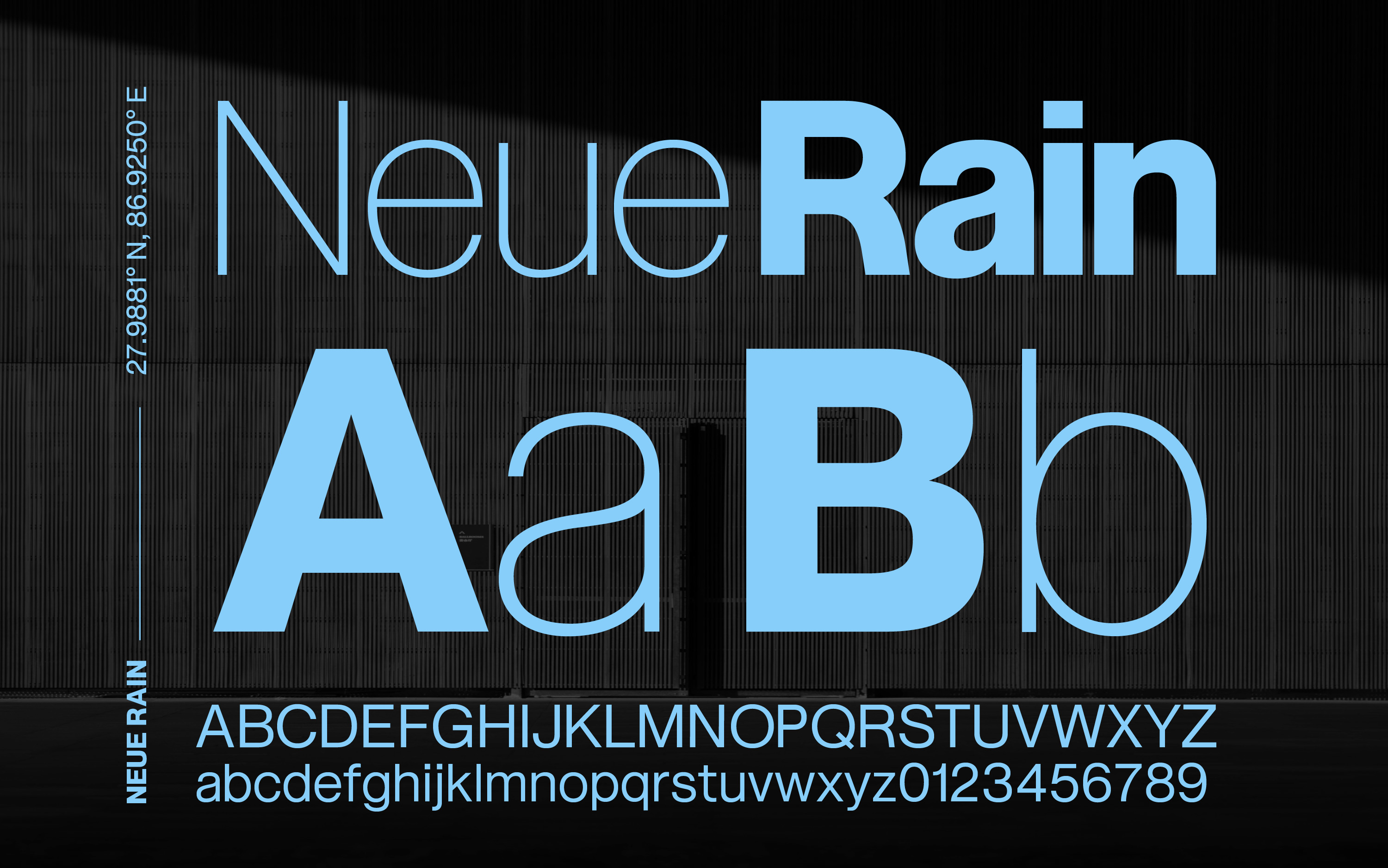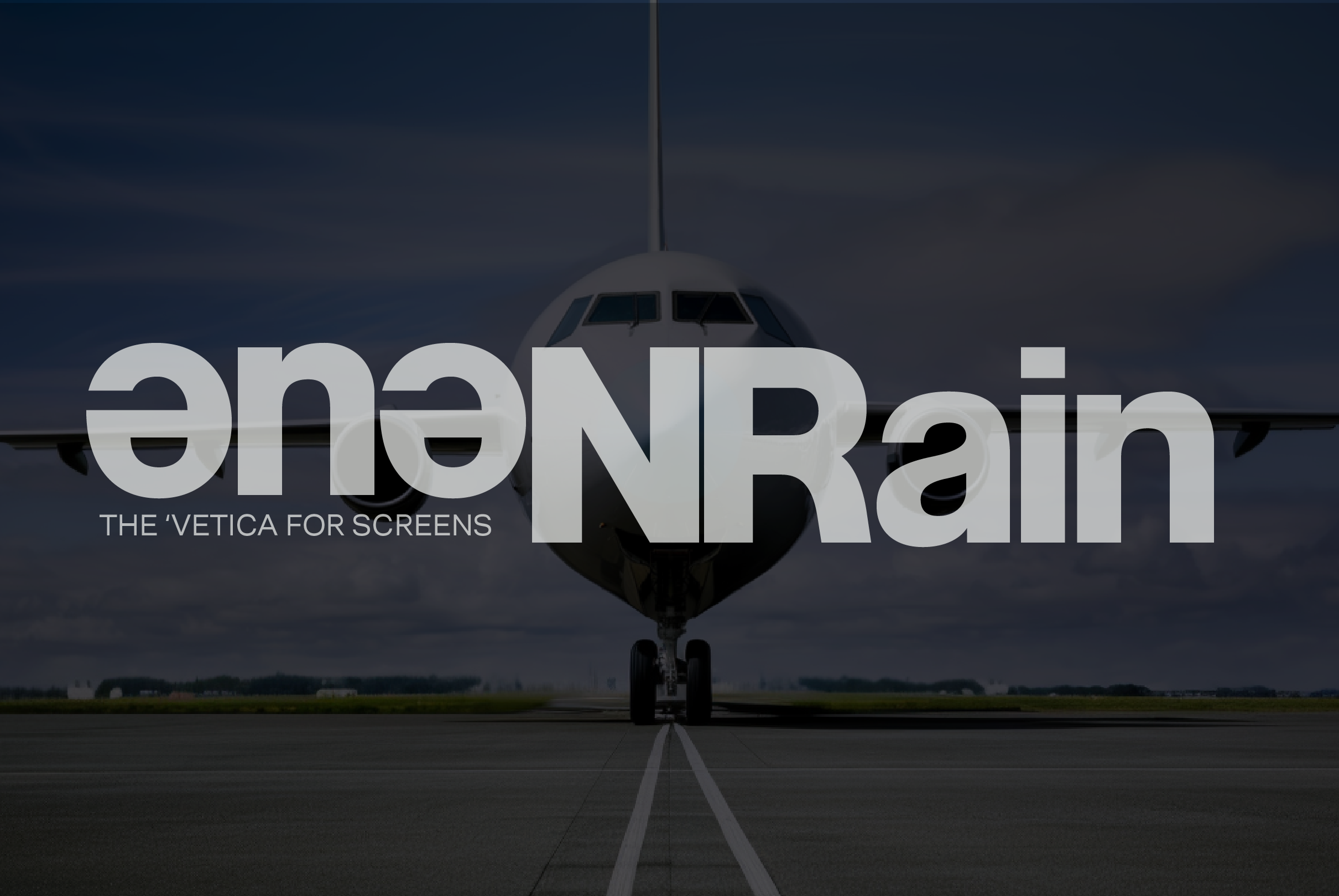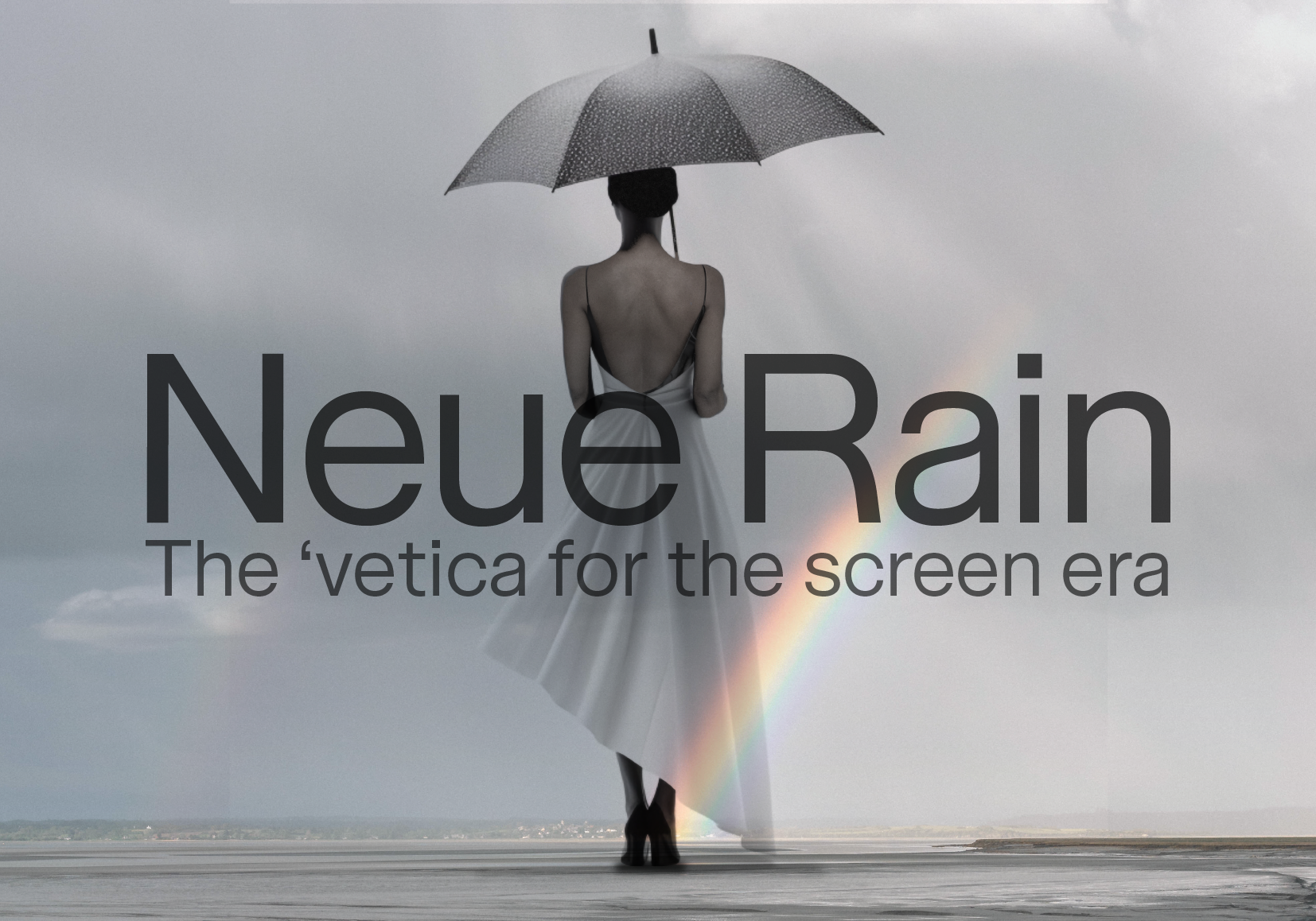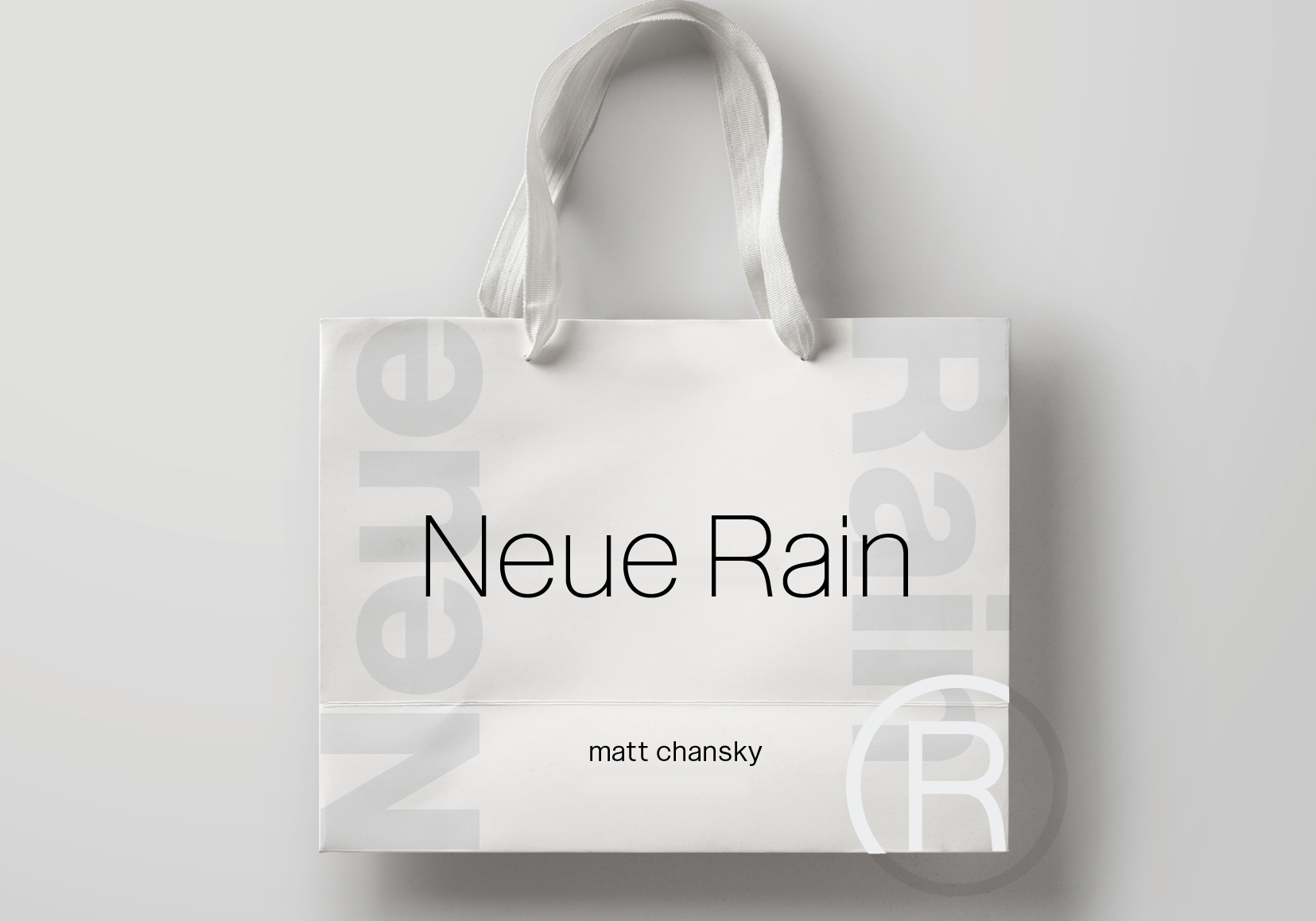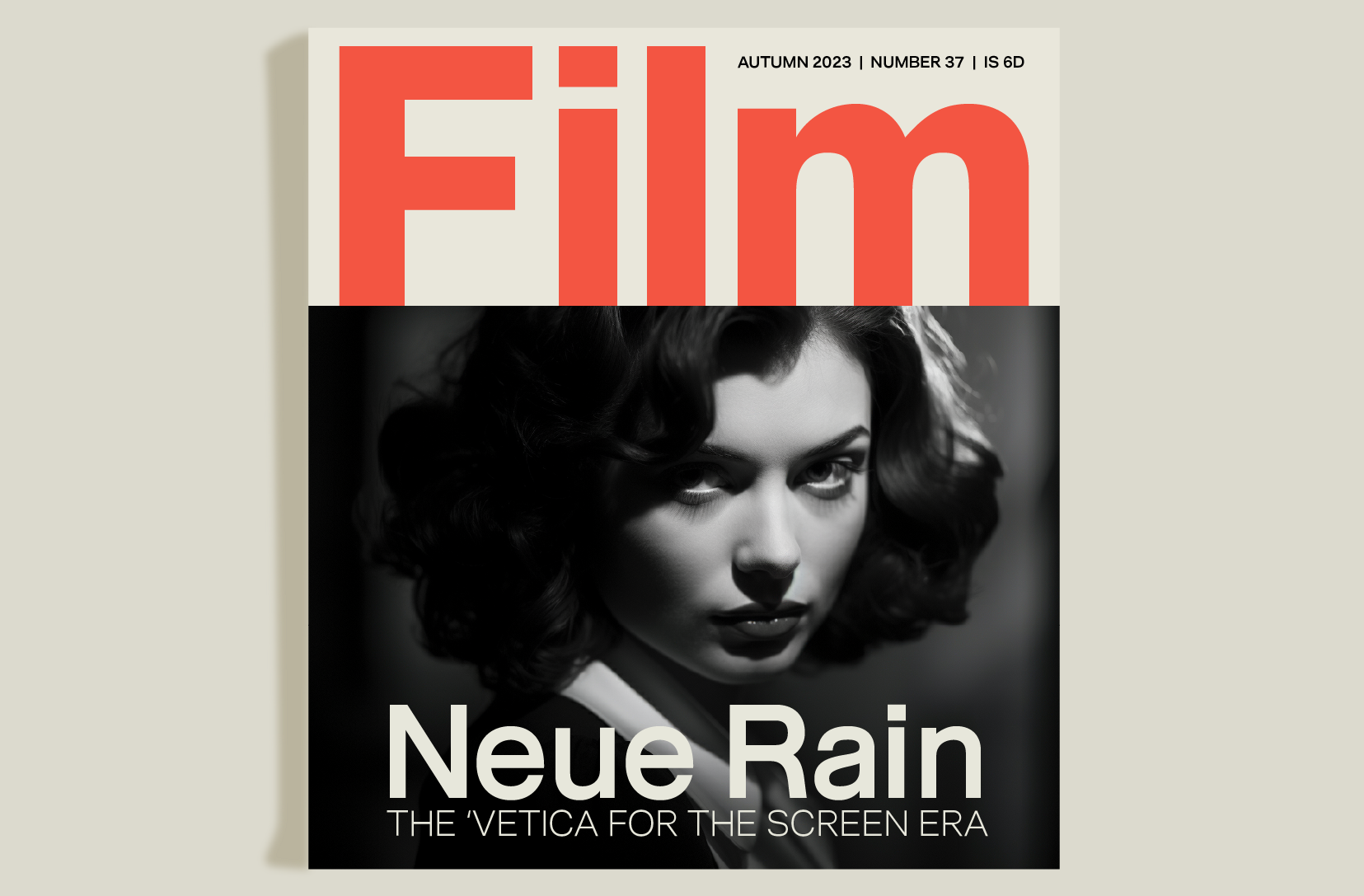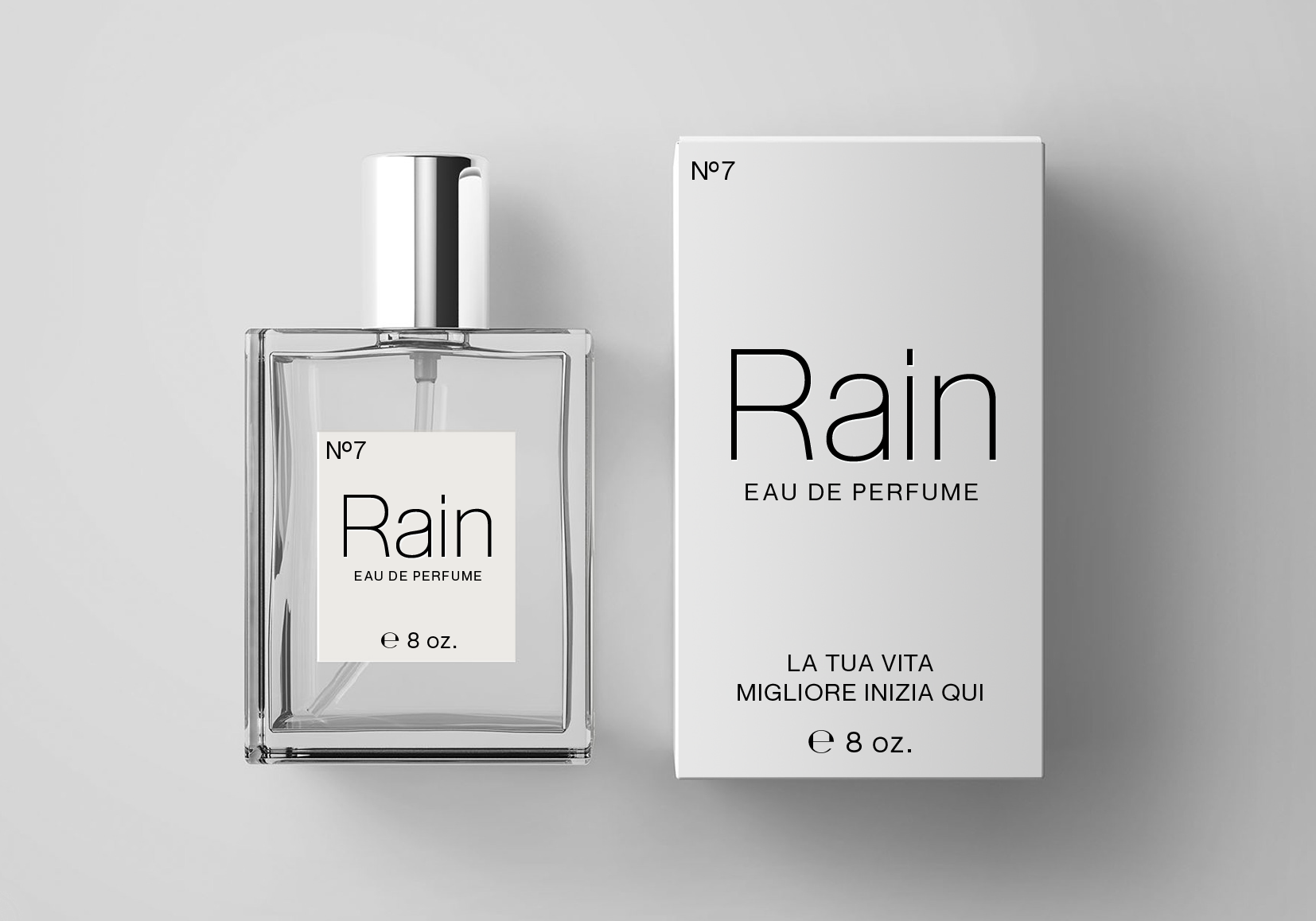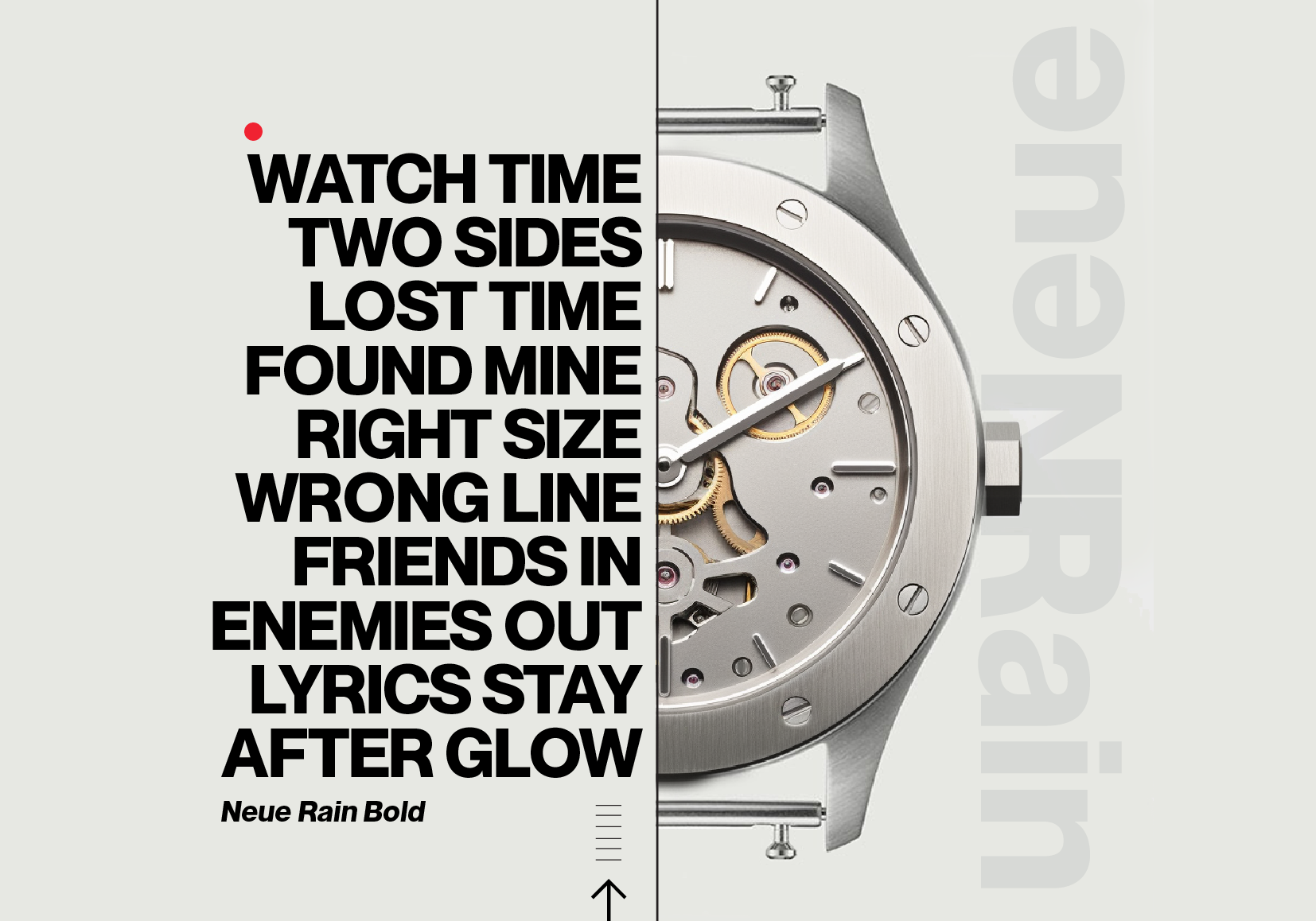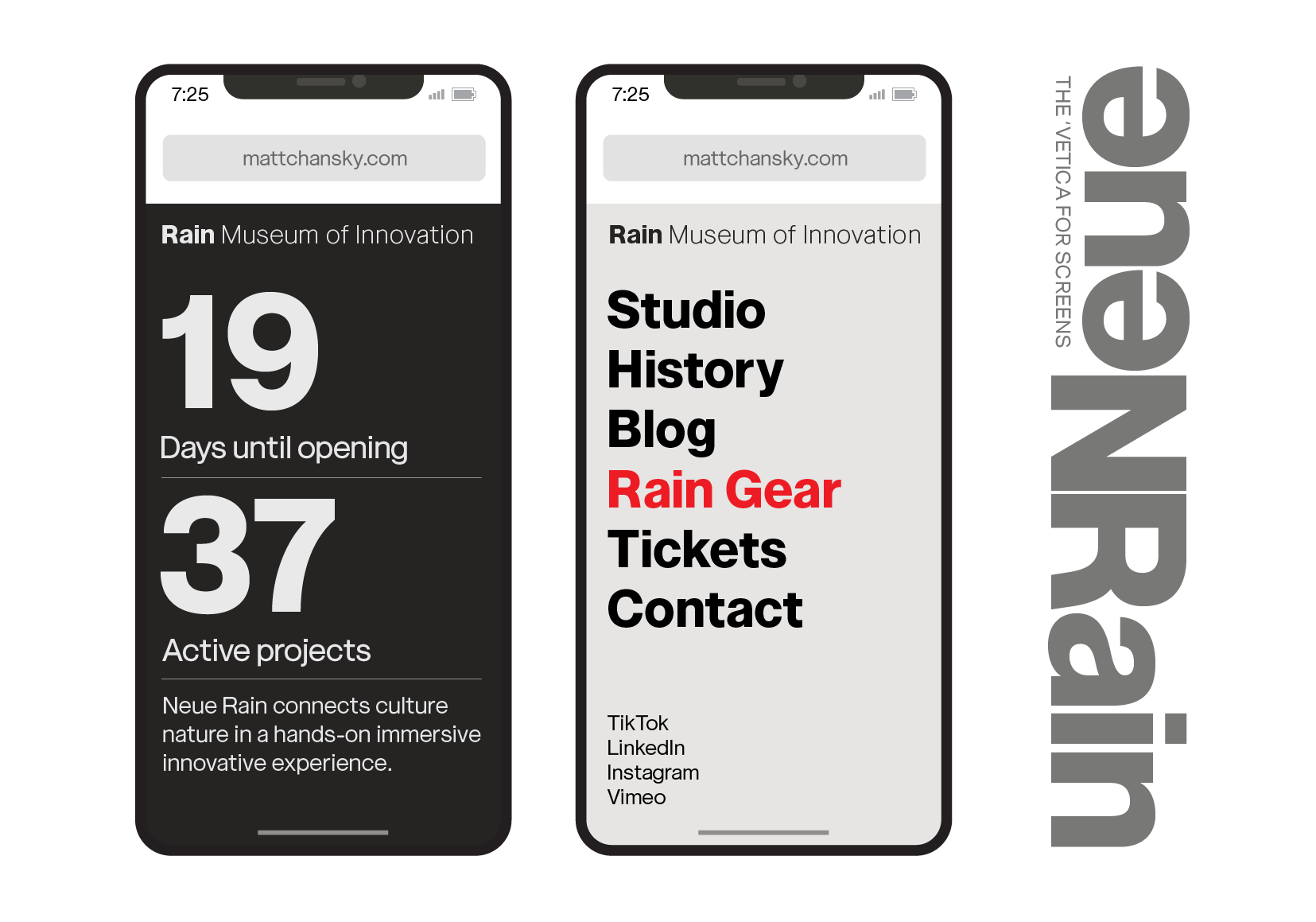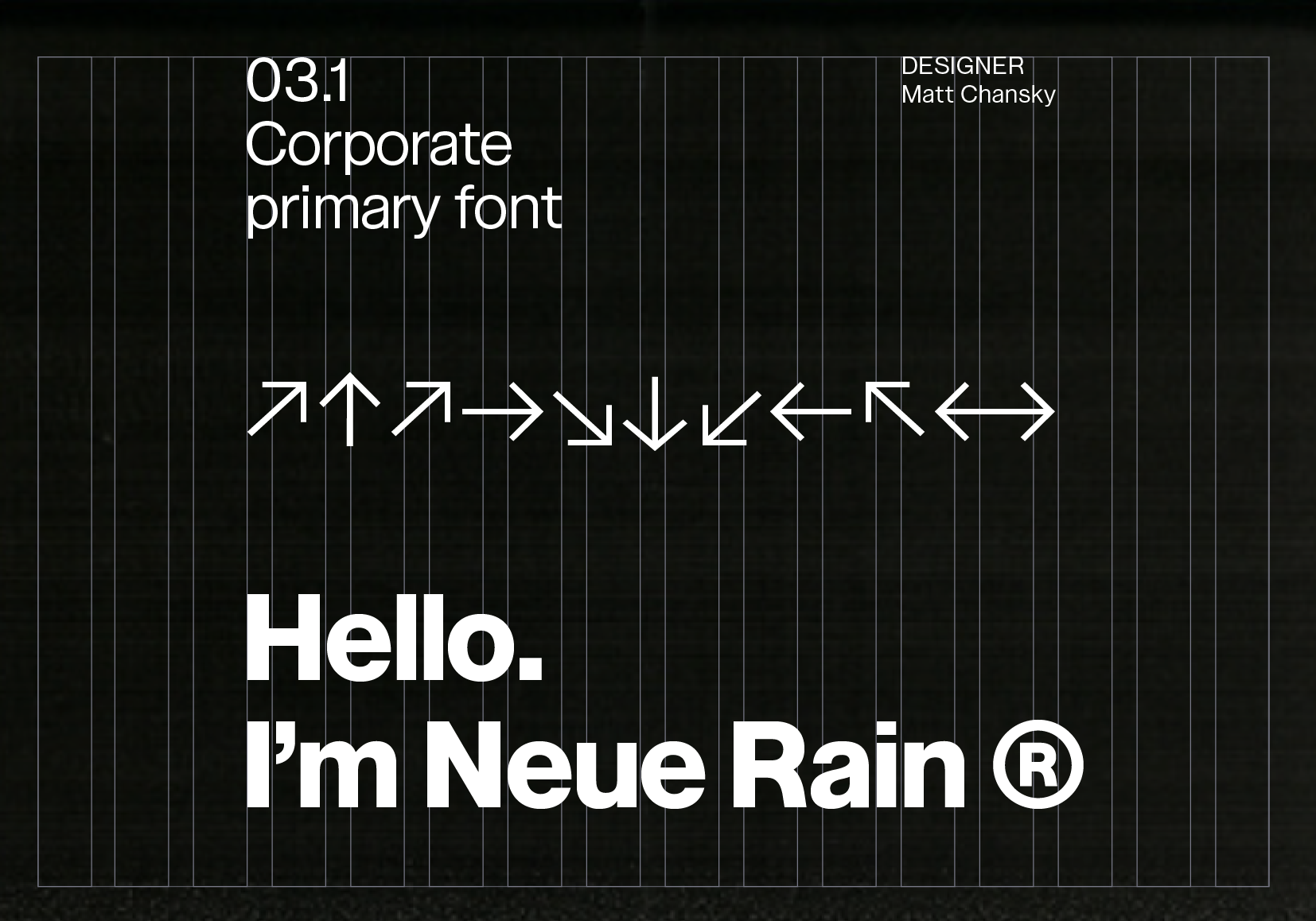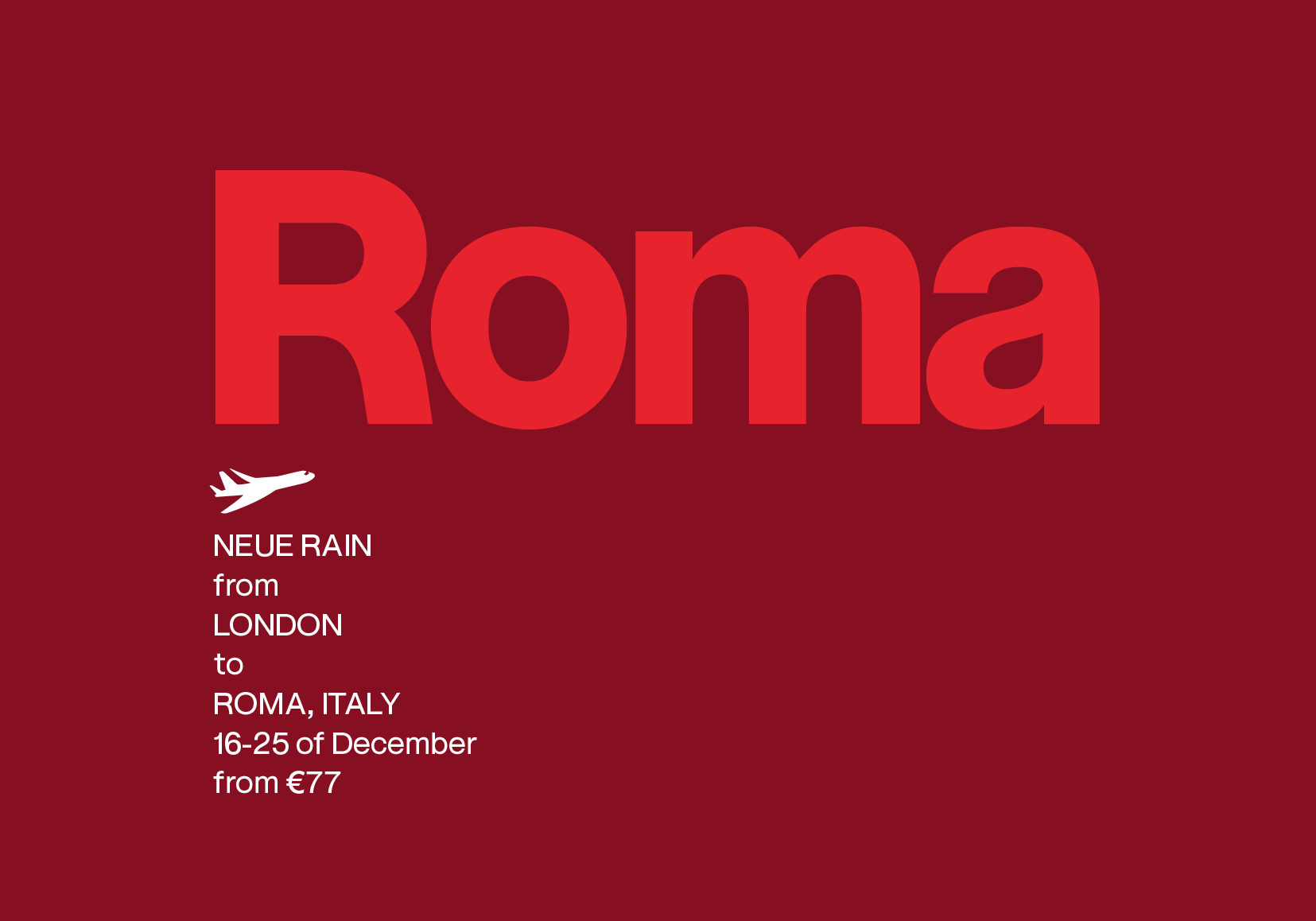
Neue Rain
A HIGH X-HEIGHT 'VETICA
Neue Rain is Neue June's sister font. Square punctuation, horizontally compact, iconic glyphs. Learn more about licensing Neue Rain.
SIX WEIGHTS FROM THIN TO EXTRA BOLD
MULTILINGUAL + SPECIAL CHARACTERS
BIG IMPACT ON SMALL SCREENS
STYLES: FASHION THIN TO GREGARIOUS BOLD
IMPACTFUL CREATIVE THROUGH TYPOGRAPHY
LAYOUT DESIGN FONT
STRONG PRESENTATION FONT
LAYOUT DESIGN FONT
AMPLE LIGATURES
HIGH X-HEIGHT AND SPECIAL CHARACTERS
THE HIGH X-HEIGHT 'VETICA
THE MODERN 'VETICA